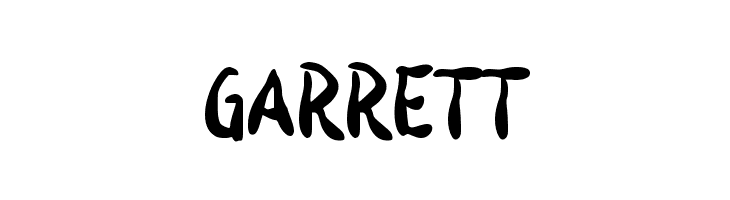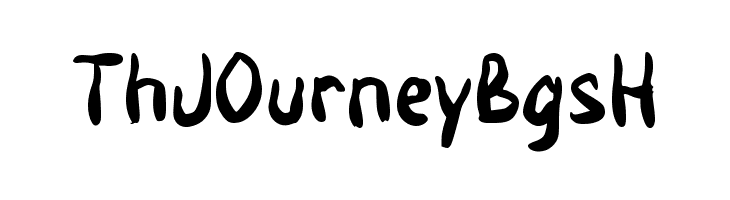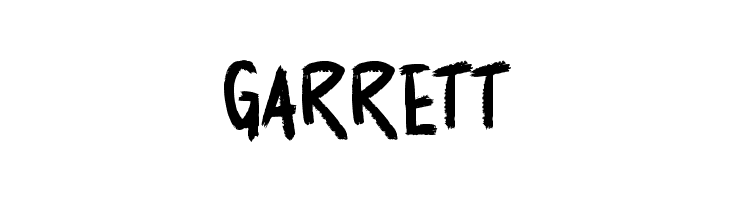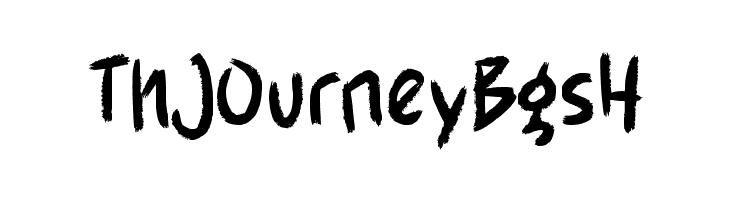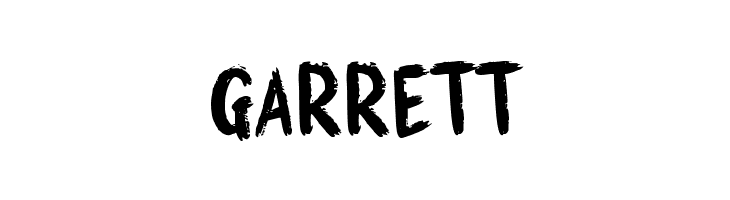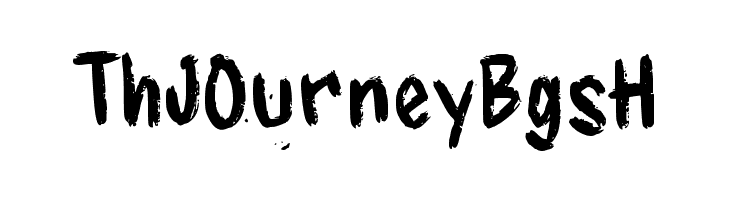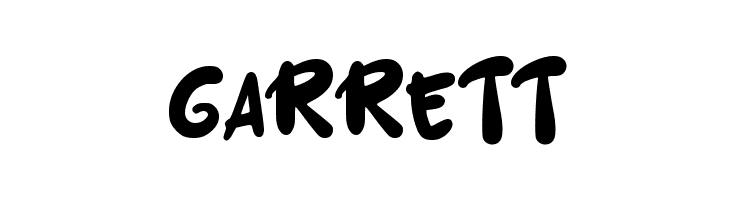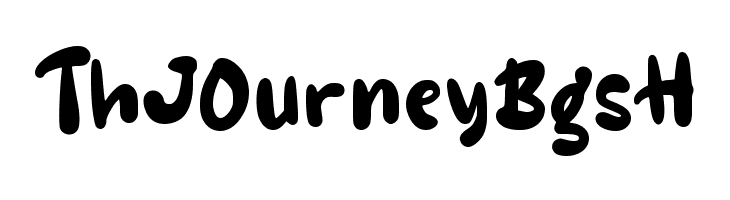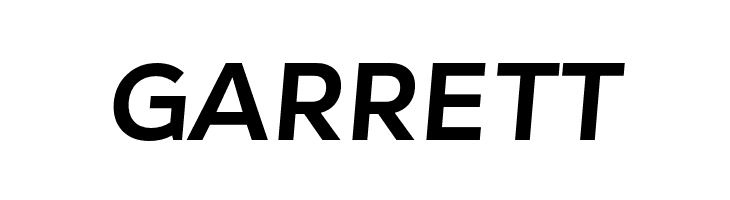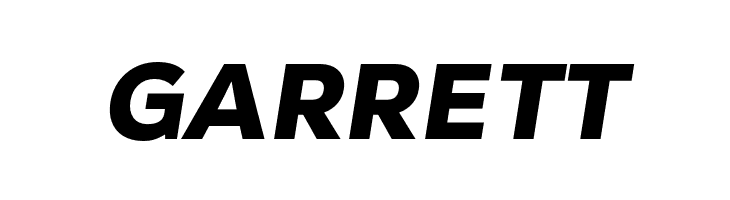
• Grow
A playful, hand-drawn font with bold, uneven strokes.
• GROWE
A bold, brush-style font with a textured, hand-painted appearance.
• Grumpy Rabbit
A bold, playful handwritten font with rounded, whimsical characters.
• GRUNGINK
A bold, textured font with a grungy, hand-painted style.
• GT Vice City Sans - Black
Bold, modern sans-serif font.
• GT Vice City Sans - Black Italic
Bold italic sans-serif font with a modern style.
• GT Vice City Sans - Black Soft Italic
Bold, italic sans-serif with a soft look.
• GT Vice City Sans - Bold
Bold, modern sans-serif font.
• GT Vice City Sans - Bold Italic
Bold italic sans-serif font with a modern look.
• GT Vice City Sans - Bold Soft Italic
Bold, italic sans-serif with a soft, rounded style.